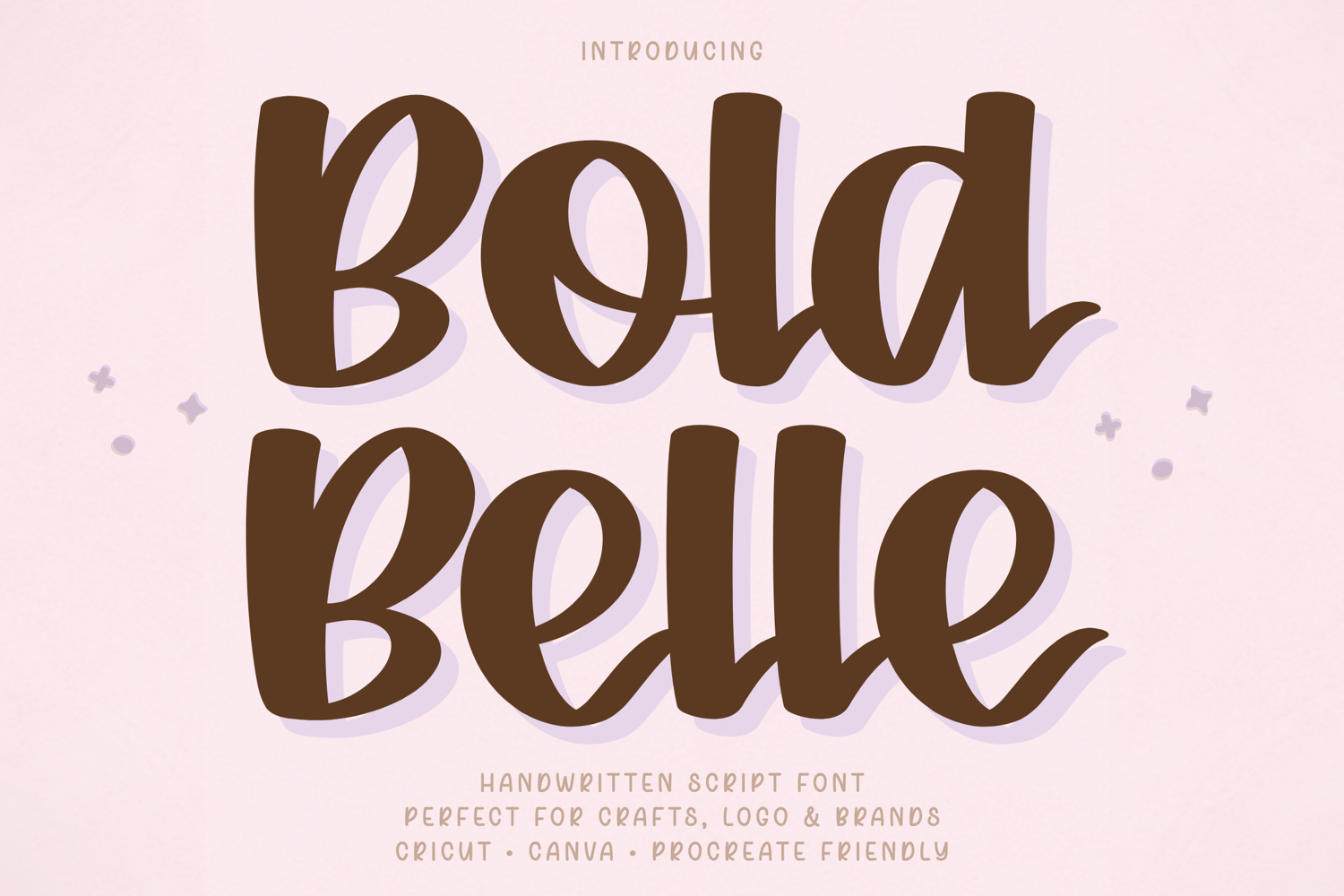
Bold Belle - Handwritten Script Font
Bold Belle – Handwritten Script Font
Bold Belle is a bold and charming handwritten script font designed to make your designs stand out with a soft yet confident personality. With its thick strokes and rounded letterforms, this font delivers a strong visual presence while maintaining excellent readability.
Carefully crafted for versatility, Bold Belle works beautifully across a wide range of applications—from Cricut cutting projects to branding, logos, digital planners, and social media design. Its clean and consistent structure ensures smooth performance for both writing and cutting, making it a reliable choice for everyday creative use.
Bold Belle is designed with thick, smooth strokes and balanced spacing, making it easy to use for both beginners and professional designers.